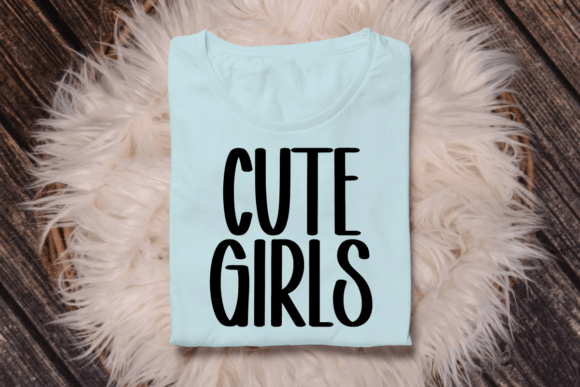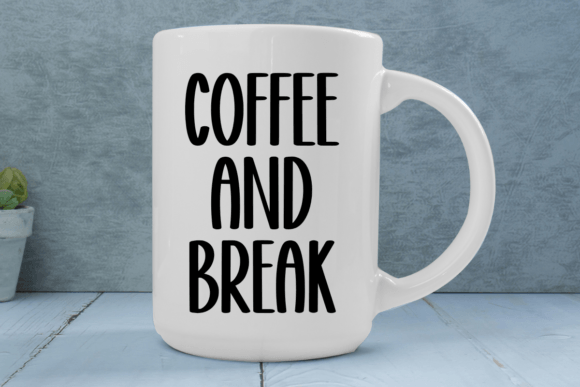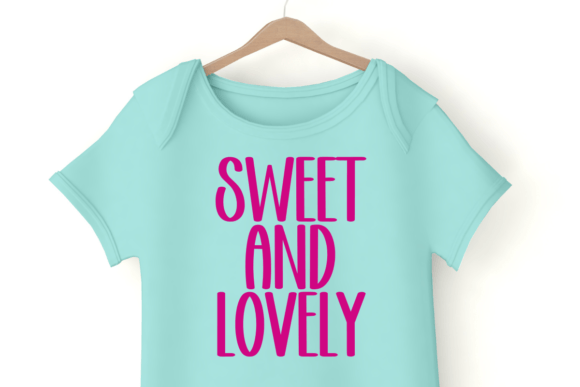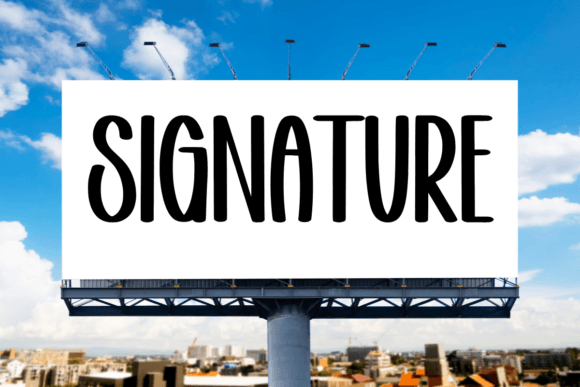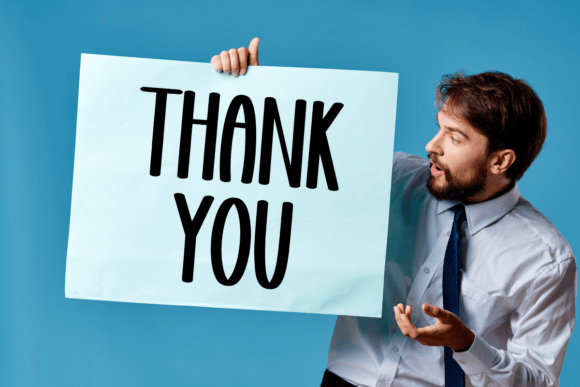
The Designer’s Dilemma: Finding Clarity in the Perfect Font
I still remember the frustration of working on a project, hours spent crafting the perfect layout, only to realize that the font I chose wasn’t quite right. The text was either too ornate, too bland, or just didn’t seem to fit the vibe I was going for. It was a client project, and I knew I had to get it just right. That’s when I stumbled upon the Designer font – a neat and casual sans-serif font that changed the game for me.
A First Impression: What I Love About Designer Font
The Designer font has become a staple in my design toolkit, and for good reason. Here are a few things that I absolutely love about it:
- ✨ Clean lines and balanced proportions: The font’s simplicity makes it incredibly versatile, suitable for everything from digital interfaces to print materials.
- ✅ Excellent readability: Whether I’m working on a website, a brochure, or a social media graphic, I know that the Designer font will be easy on the eyes.
- 💡 Modern appeal: The font has a fresh, contemporary feel that instantly elevates the design.
The Not-So-Perfect: A Few Quirks
No font is perfect, and the Designer font is no exception. Here are a few things to keep in mind:
- 🤔 Limited stylistic options: While the font is clean and versatile, it doesn’t offer a ton of variation in terms of styles or alternates.
- ⚠️ May not be suitable for very large or very small text: As with any sans-serif font, it may lose some of its clarity when used at very large or very small sizes.
The Story Behind Designer Font
The Designer font was created with the goal of providing a clean, versatile typeface that could be used across a wide range of design projects. While the exact origins of the font are unclear, it’s likely that the designers were inspired by the simplicity and elegance of modern sans-serif fonts. The result is a font that’s both modern and highly functional.
| Font Name | Designer Font |
| What makes the Designer font so versatile? | The font’s clean lines, balanced proportions, and simple design make it suitable for a wide range of projects, from digital interfaces to print materials. |
| Does the Designer font support OpenType features? | Yes, the Designer font supports OpenType features, including glyphs and stylistic alternates, which can add extra flexibility to your designs. |
| Is the Designer font suitable for body text? | Yes, the Designer font is designed for readability and can be used for body text, especially in digital interfaces or print materials where clarity is key. |